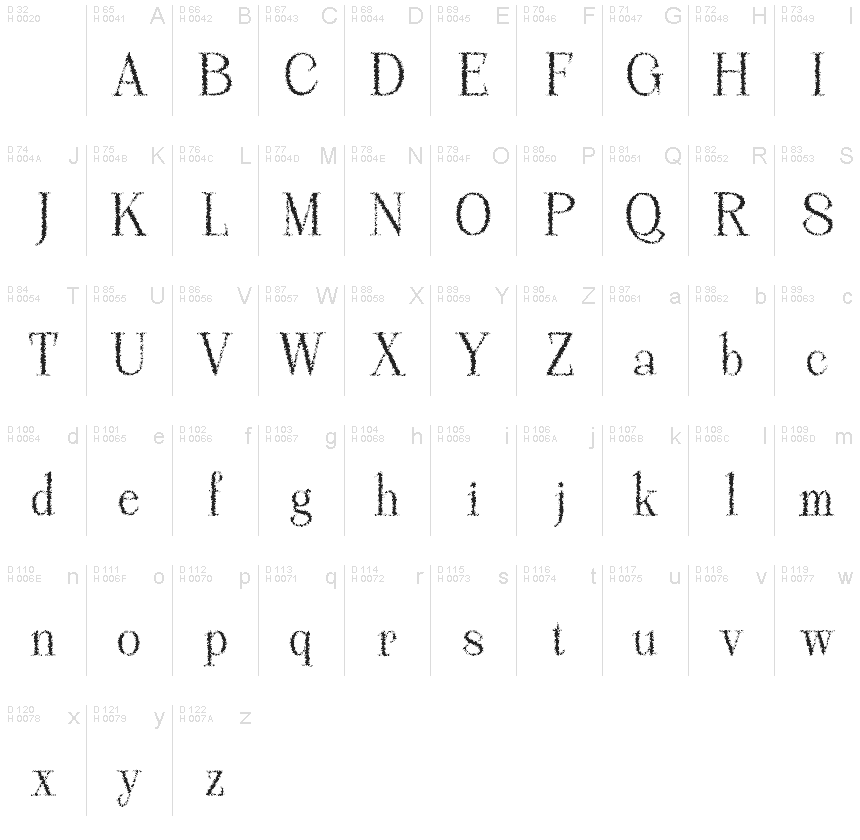
Chavler Unfocus Demo Regular
Chavler Unfocus font by Craft Supply Co. is inspired by vintage aesthetic styles and a nostalgic feel, a perfect free display Font offering a rough and an old-school vibe. Its eroded serif characters feature visible blemishes that present excellent readability and uniqueness when combined together.